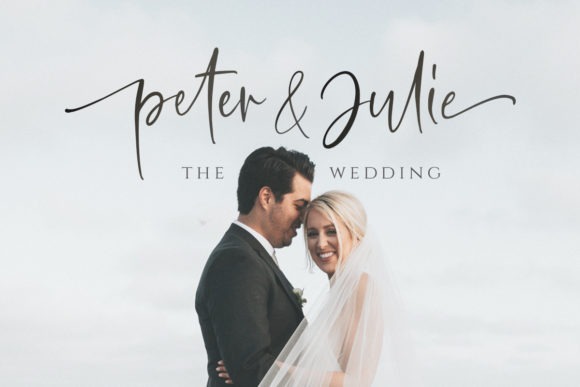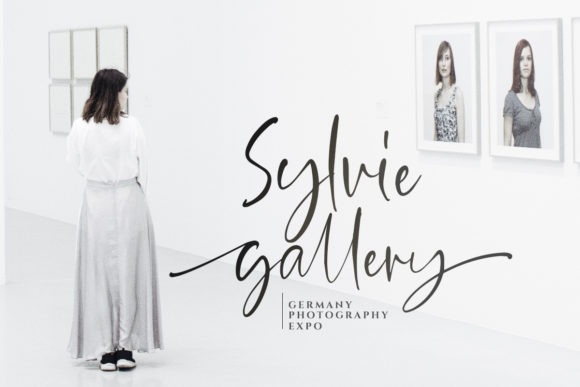
Goldbrick Handwritten Font
This is a modern calligraphy font created by saridezra with handwriting characteristics. It looks stunning on wedding invitations, thank you cards, quotes, greeting cards, logos, business cards and every other design which needs a handwritten touch. It features a varying baseline, smooth lines, gorgeous glyphs and stunning alternates.